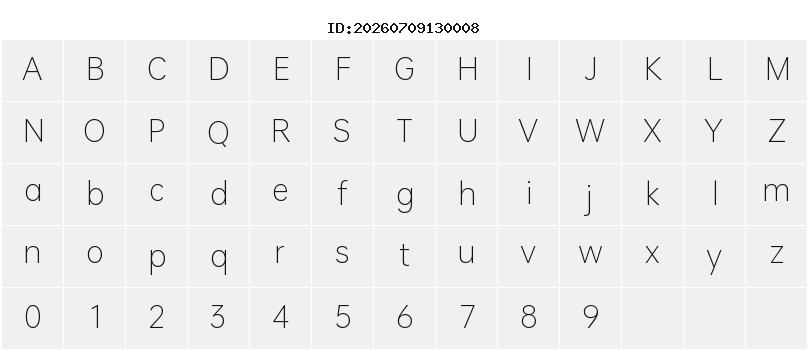
OPPOSans 2.0 ExtLt Preview
• Font Name: OPPOSans 2.0 ExtLt
• Full Font Name: OPPOSans 2.0 ExtraLight
About OPPOSans 2.0 ExtLt.ttf
OPPOSans 2.0 ExtLt.ttf is a modern, elegant sans-serif font designed for ultimate readability and visual harmony. Perfect for branding, headlines, web design, and print materials.